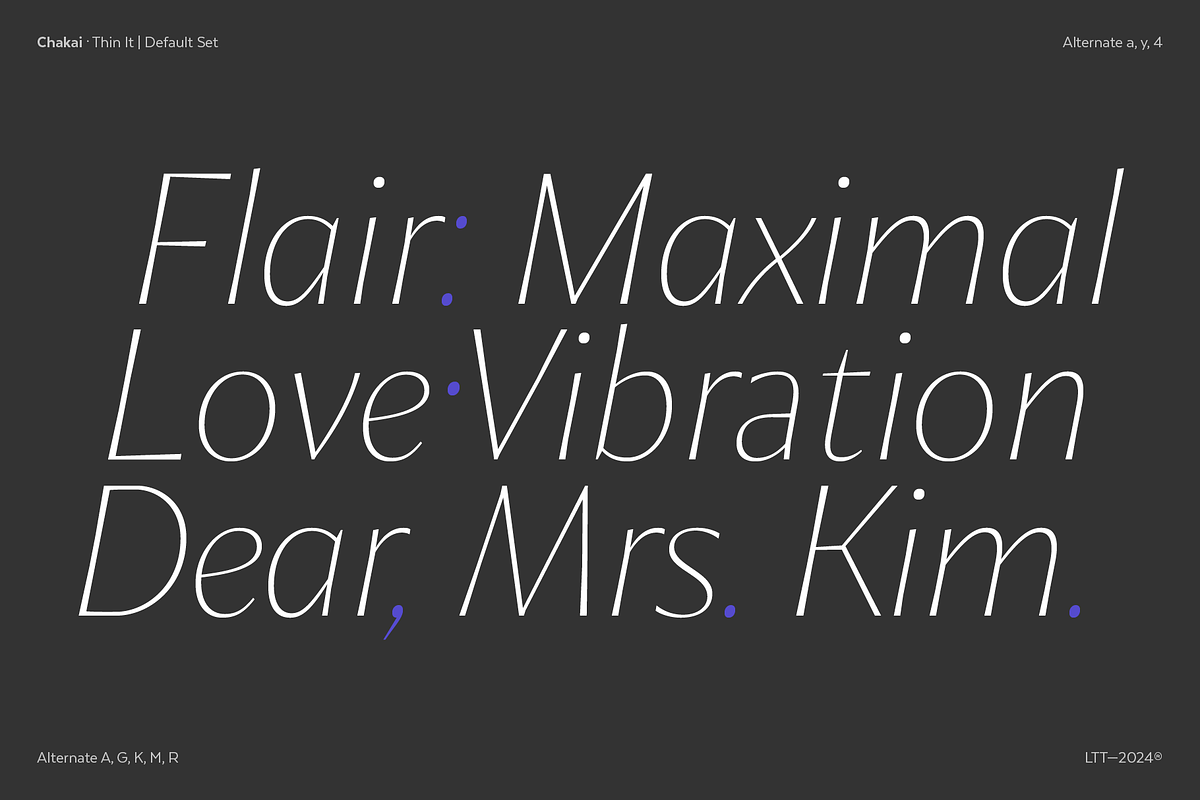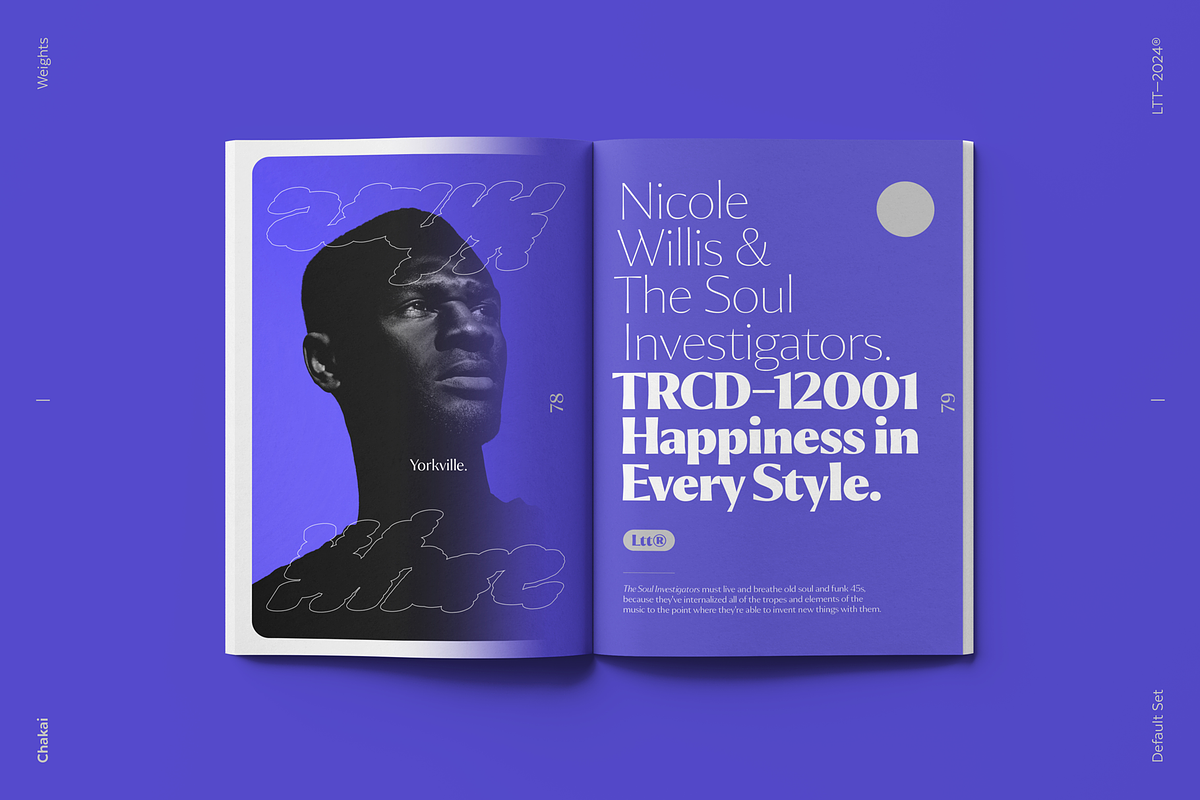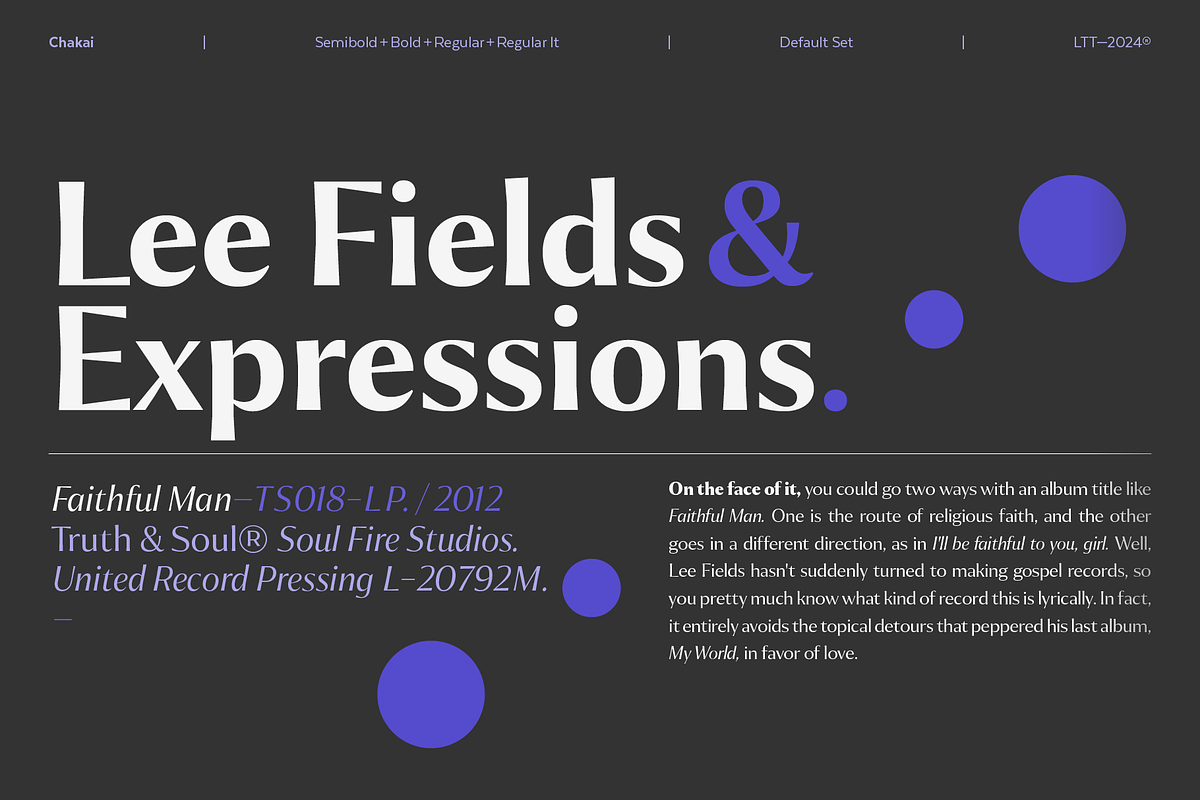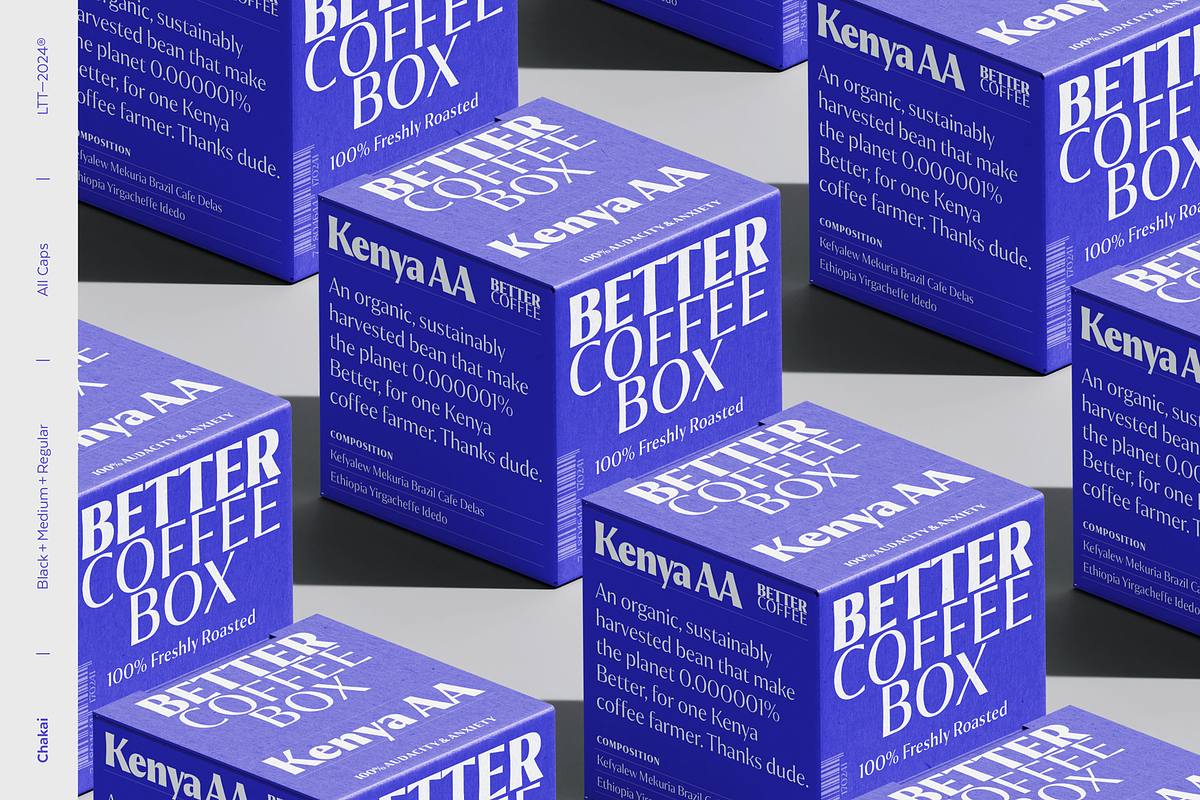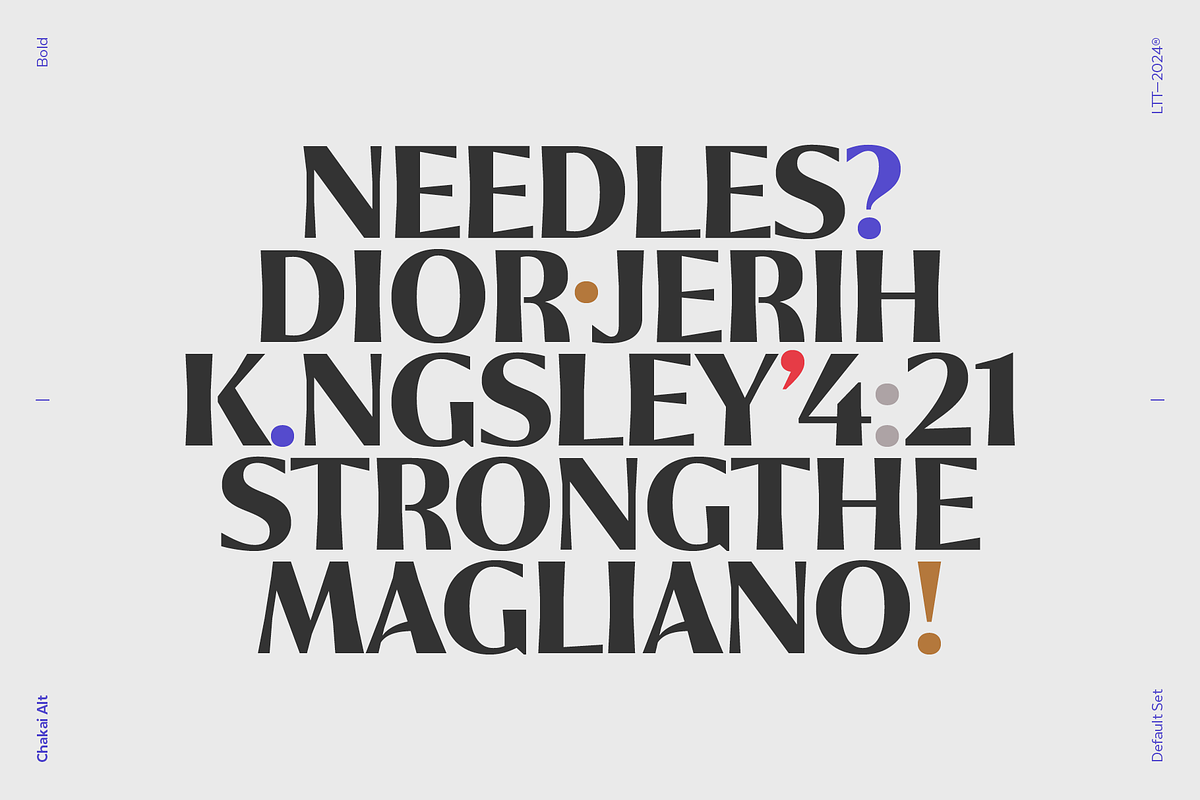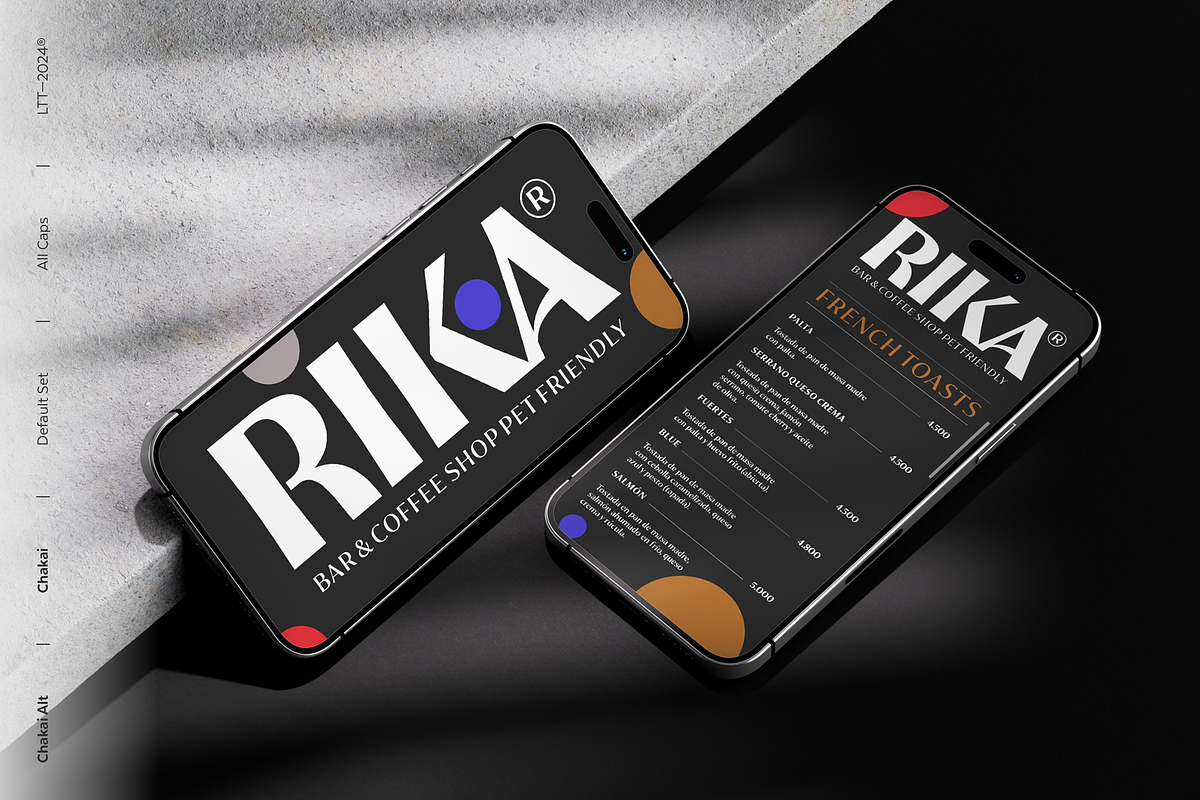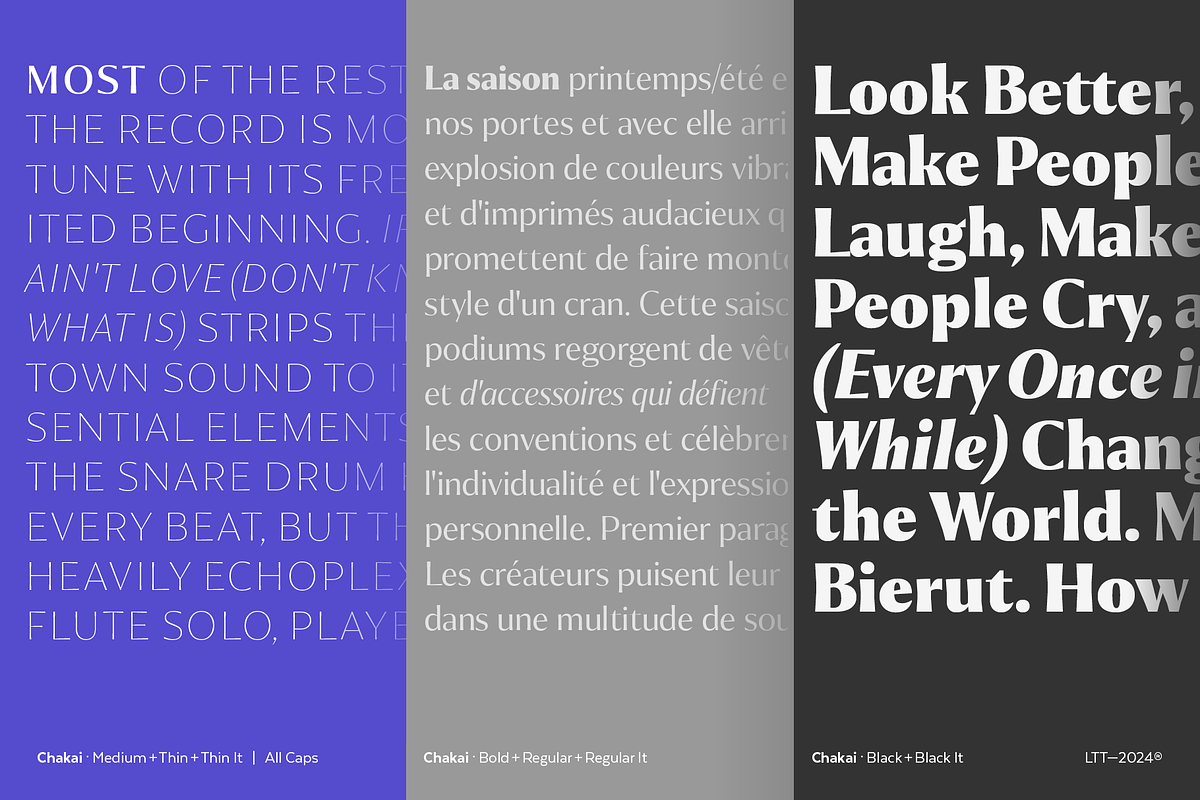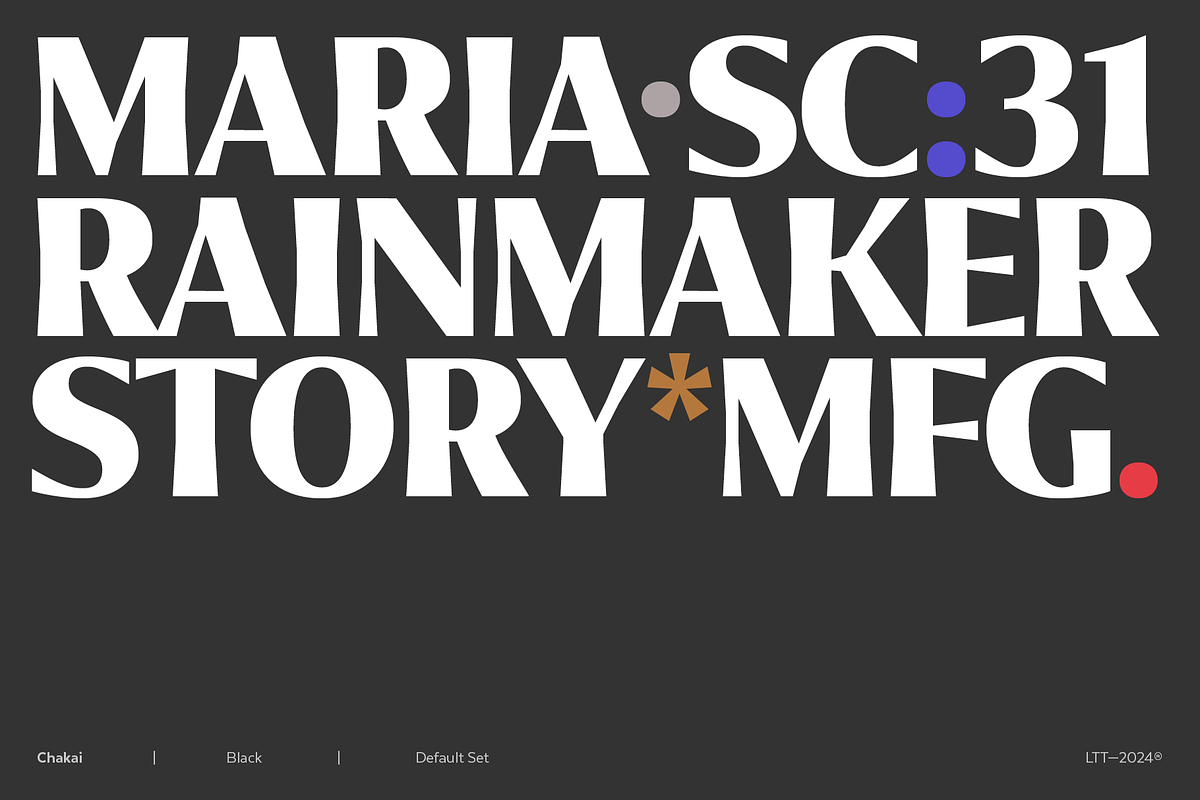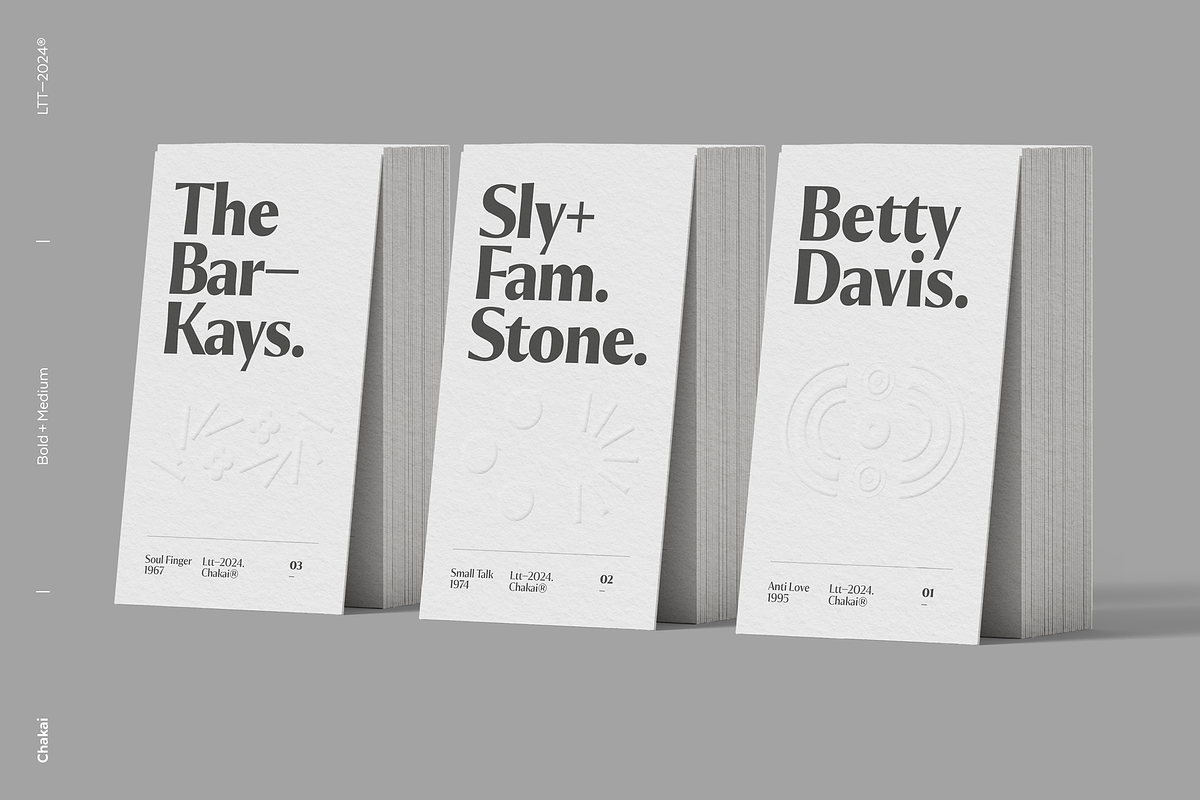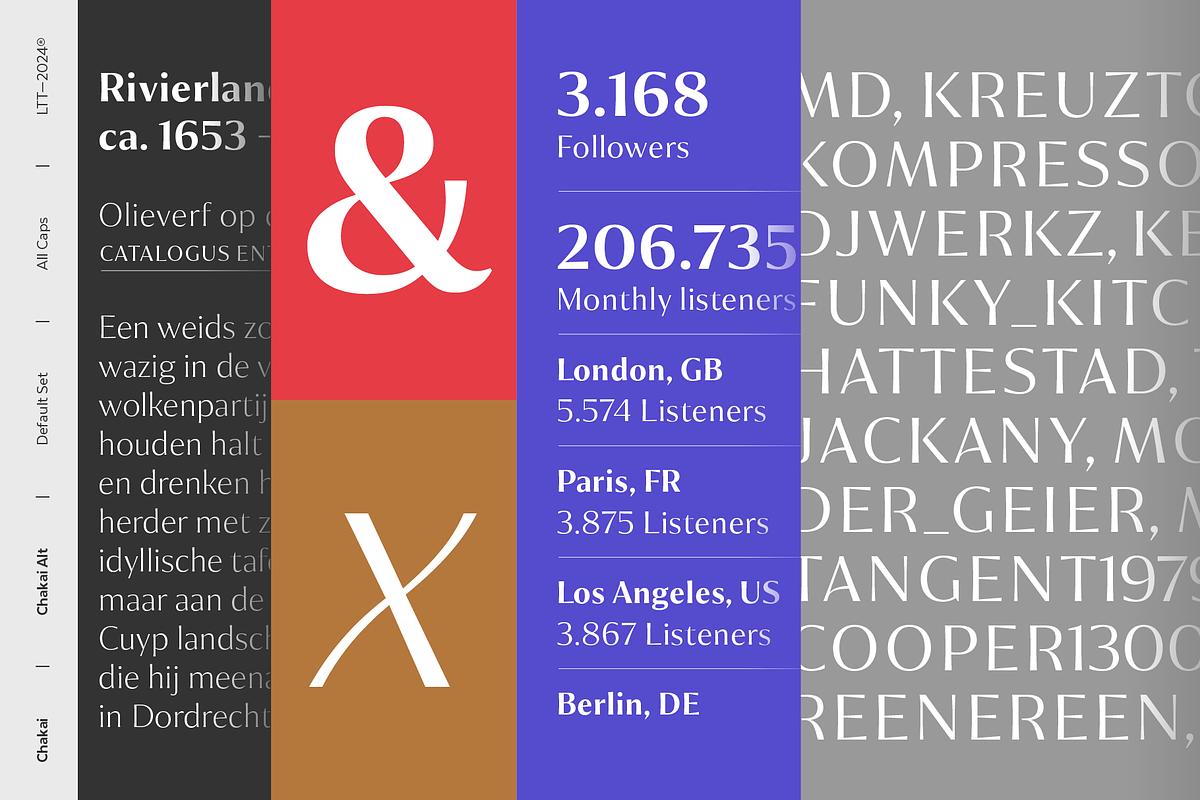
Chakai, a well seasoned typeface with a touch of spice that has a perfect balance between brightness, subtlety and functionality. It is meticulously designed to stand out elegantly in situations that require character, delicacy and clarity in texts. With its soft serifs and a style that is halfway between serif and sans, Chakai has defined horizontal strokes that provide stability, proposes a controlled contrast to stand out clearly and is designed with proportions typical of typographic modernity, which give a unique and distinctive identity to Chakai.
Chakai has a variety of weights that make it ideal for eye-catching headlines in various applications such as logos, packaging design or article headers and a wide variety of possibilities for use in editorial design because it maintains its readability in long texts and stands out in large size, making it a versatile option for any project.